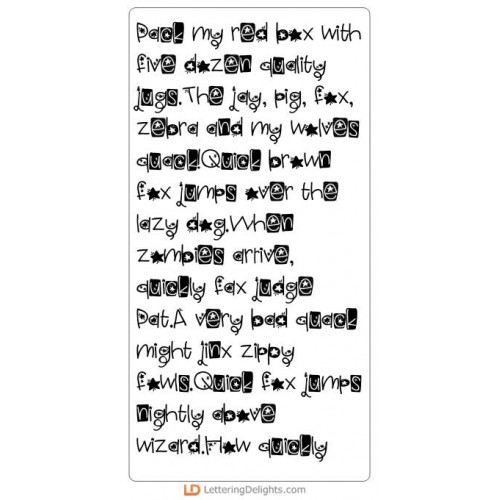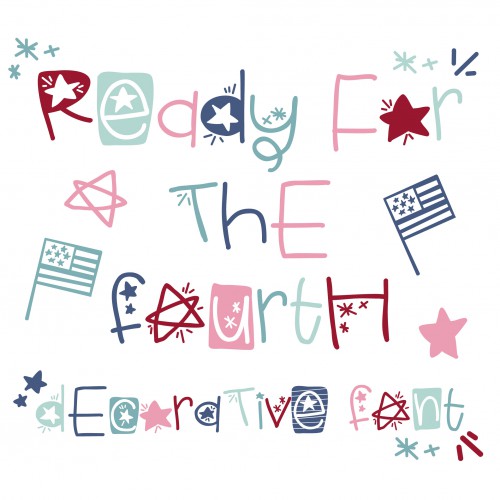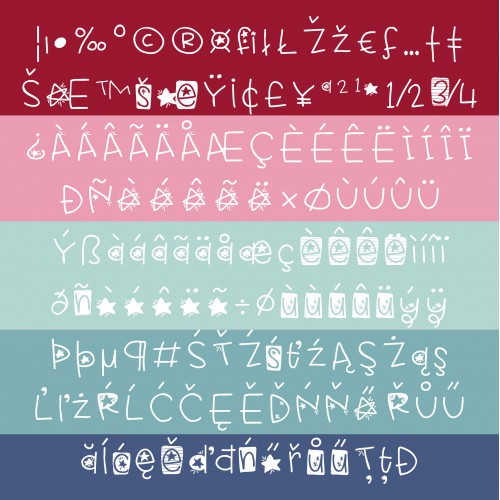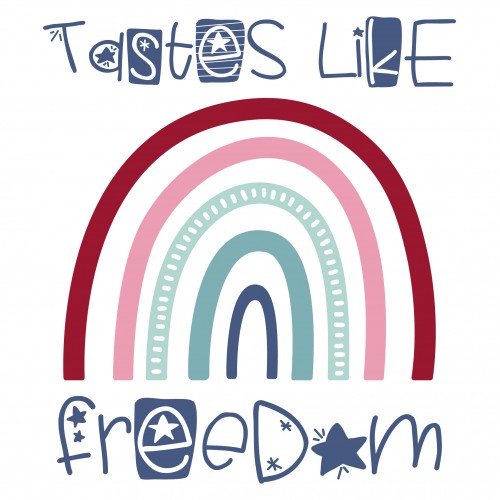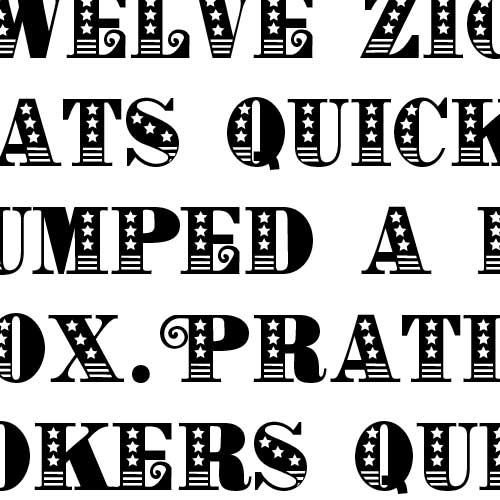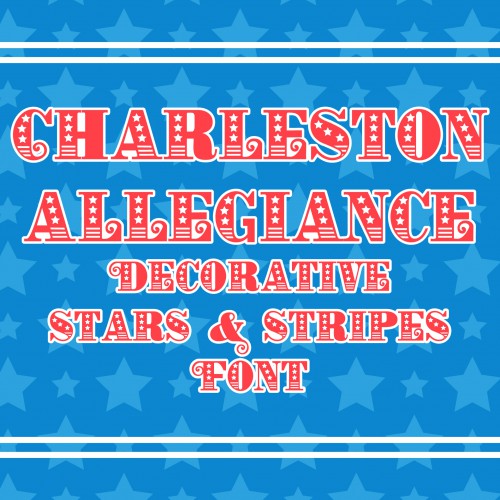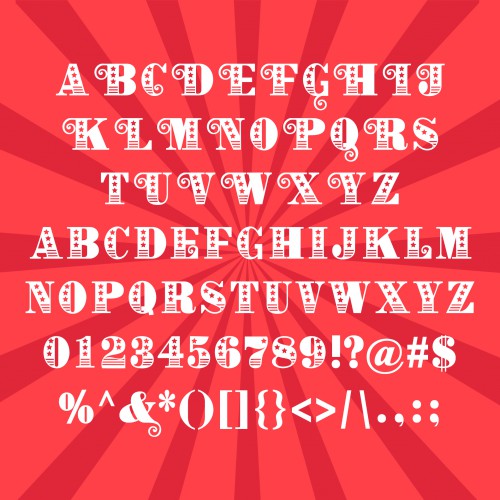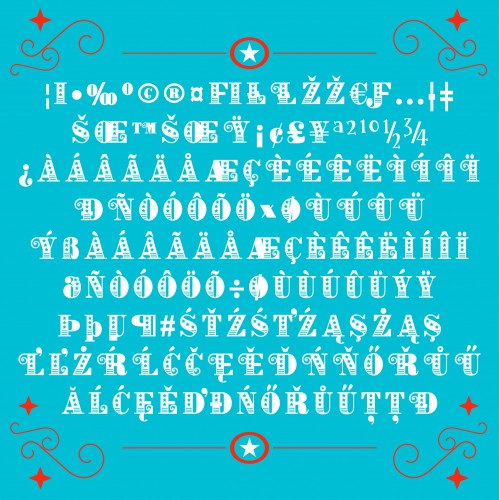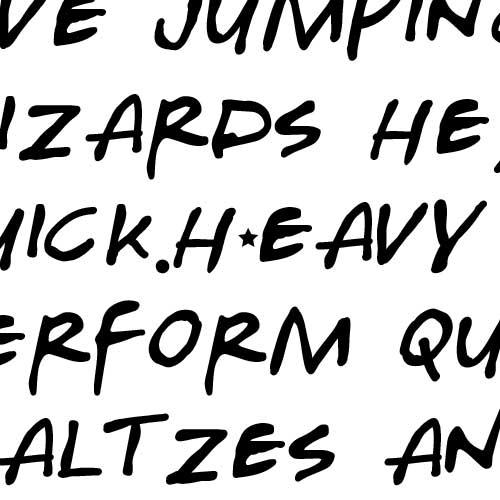
1. Doodle Dandy - Font Bundle
This fun font bundle features ten fonts with an Americana feel.
• PN Ready for the Fourth - FN
• ZP Charleston Allegiance - FN
• ZP Fraternities Star - FN
• PN Memorial Sleigh - FN
• PN Long Island Independence - FN
• ZP Jolly July - FN
• PN The Fourth - FN
• PN Americana Slab - FN
• PN Stars and Swirls Monogram Banner - FN
• ZP Yankee Doodle - FN
PN Ready for the Fourth - FN
This cute, hand-written font features youthful lettering and stars and stripes...
ZP Charleston Allegiance - FN
This blocky and bold font features stars and stripes throughout with an extra curl on the uppercase ..
ZP Fraternities Star - FN
This hand-written font features stars next to each uppercase letter and a lowercase without...
PN Memorial Sleigh - FN
This hand-crafted font features stars and stripes...
PN Long Island Independence - FN
This pretty serif font has stars and stripes throughout...
ZP Jolly July - FN
This cute and whimsical font features stars and stripes and has ligatures you can access through usi..
PN The Fourth - FN
This blocky font featuers stars and stripes in the uppercase is great for titles, displays, posters,..
PN Americana Slab - FN
This adorable hand-crafted font has an american flag motif to it...
PN Stars and Swirls Monogram Banner - FN
This Patriotic monogram font is meant for you to type another word in the center of the upper case...
ZP Yankee Doodle - FN
This cute font features stars and stripes and is a great font to color in on posters, titles, displa..